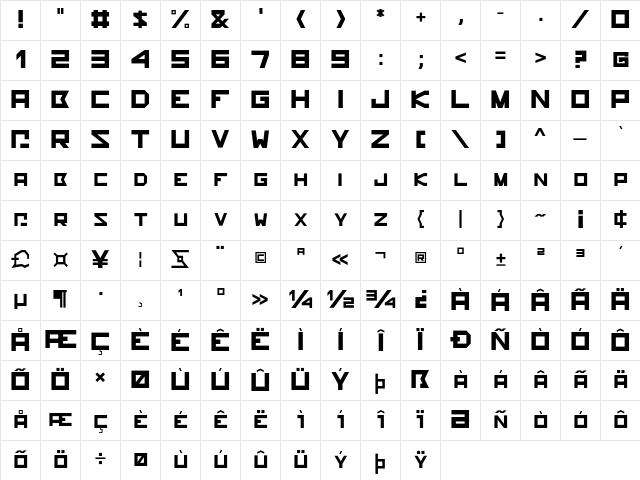
Complete hammerhead Regular glyph index. Displaying only characters natively supported by hammerhead Regular font.
hammerhead is a composed and adaptable typeface that performs quietly and consistently across a wide range of design contexts.
Who designed the hammerhead Regular font?